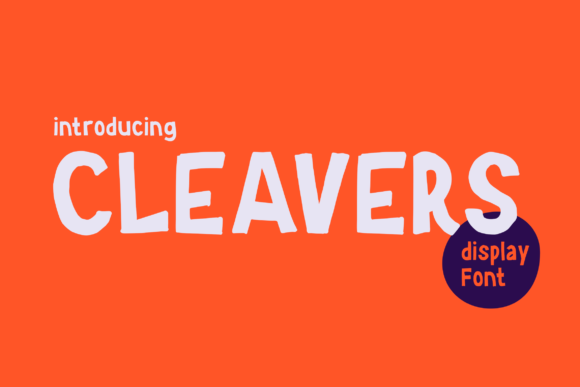
Journey into a world of boundless creativity with Cleavers Font, a mesmerizing display font that will ignite your imagination and transform your designs into captivating masterpieces. Step into the realm of wonder where letters dance with grace and charm, leaving a trail of enchantment in their wake.
With Cleavers Font, ordinary text becomes an extraordinary spectacle, capturing hearts and captivating minds. Its meticulously crafted characters exude a playful charm, inviting you to embark on a whimsical adventure through the world of typography. Whether you're a seasoned designer seeking inspiration or a novice seeking to make a lasting impression, Cleavers Font is your gateway to greatness.
Immerse yourself in the boundless versatility of Cleavers Font, effortlessly adapting to a myriad of creative endeavors. Unleash your inner artist as you craft eye-catching logos that demand attention, design posters that ignite passion, or create social media graphics that inspire and engage. With Cleavers Font, the boundaries of creativity are limitless, empowering you to weave magic into every visual masterpiece.
Experience the thrill of effortlessly conveying your message with Cleavers Font, a font that speaks volumes without uttering a single word. Its carefully balanced strokes and captivating curves create a visual symphony that transcends language, resonating with audiences on a deeper level. Harness the power of Cleavers Font to craft designs that resonate with your target audience, leaving an indelible mark on their minds.
Embrace the Cleavers Font, a font that ignites imagination, fuels creativity, and transforms ordinary designs into extraordinary works of art. As you embark on your creative journey with Cleavers Font, prepare to be amazed by the endless possibilities that await you. Let your imagination run wild and allow Cleavers Font to guide you towards design excellence.